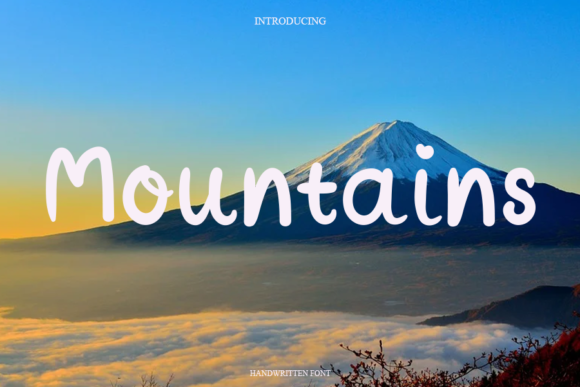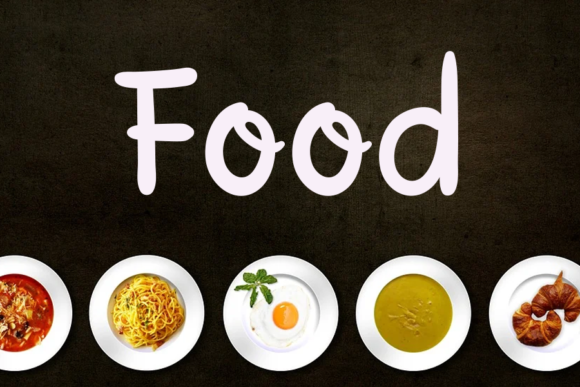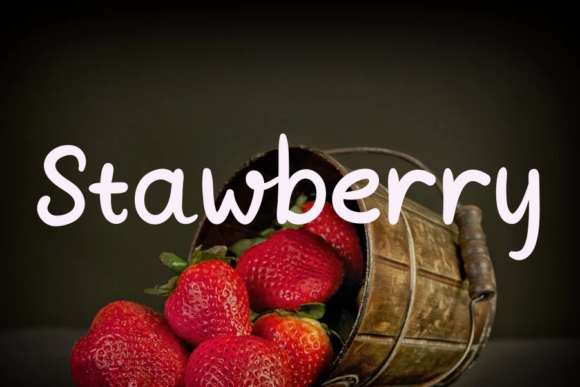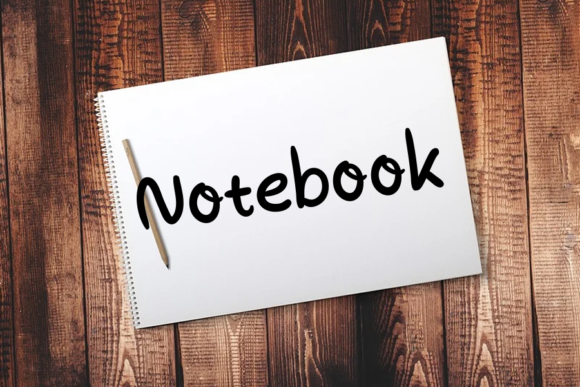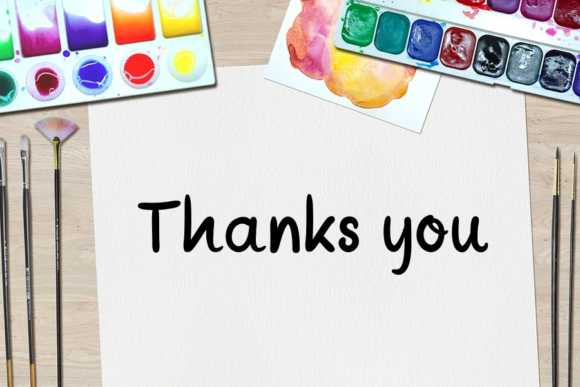
Mountains Font
About Mountains Font
Mountains is a beautiful and adaptable script font. It has a simple, elegant and modern look that can be used for logos, branding, invitations, stationery, wedding designs, social media posts, and much more!